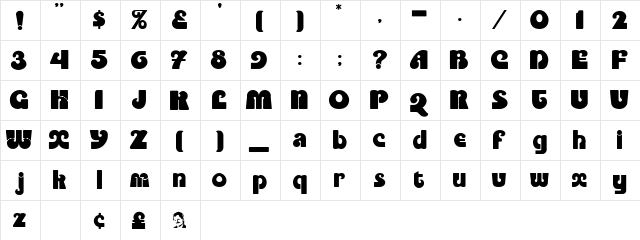
Partite Display SSi Regular
Design Context for Partite Display SSi Typeface
Partite Display SSi brings ornamental detail and strong personality to headlines and identities, where visual impact matters more than quiet functionality.
Font Pairing: Pair with a clean neutral sans-serif for body copy to let Partite Display SSi's character lead without overwhelming the composition.
Pro Tip: Treat Partite Display SSi as the centrepiece of your typographic hierarchy. One strong heading set in a decorative face can carry an entire layout.